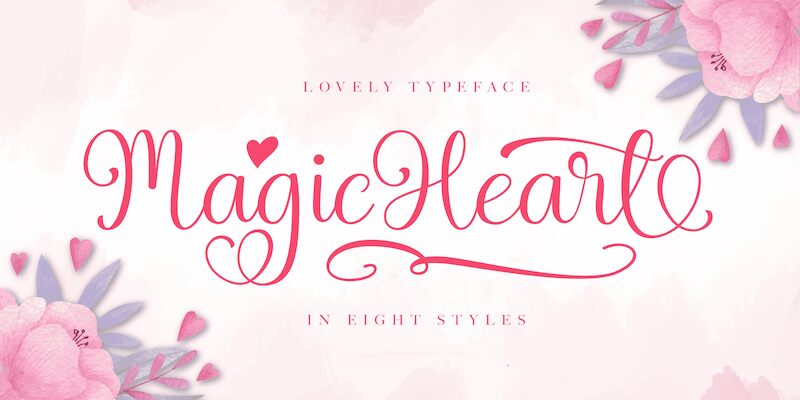
Magic Heart Ital PERSONAL USE Italic
Magic Heart Italic font is a calligraphy typeface designed by Mans Greback.
Use characters # for decorative heart symbols.
Use underscore _ anywhere in a word for swashes.
Example: Won_der
Use multiple underscore for different swashes.
Example: Love____rose